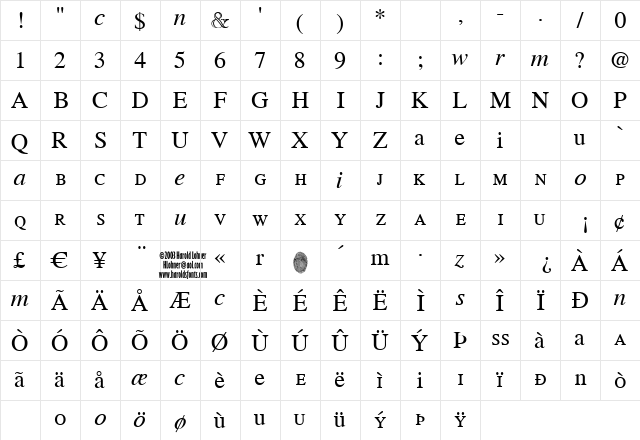
Willing Race Regular
Design Context for Willing Race Typeface
Willing Race offers clean, dependable letterforms without strong stylistic allegiance, making it a practical choice for designers who need flexibility.